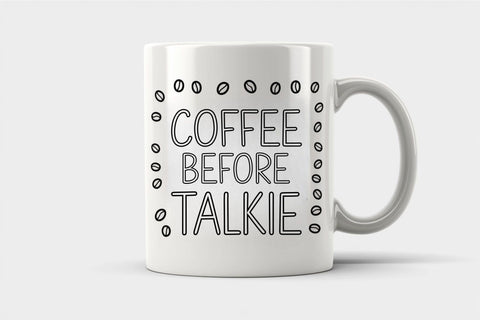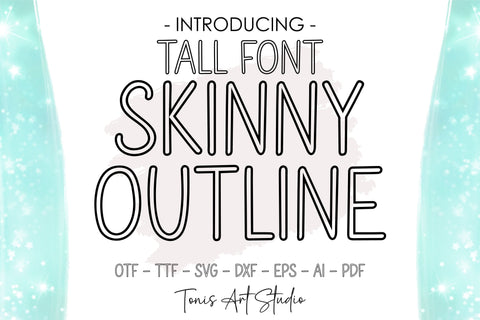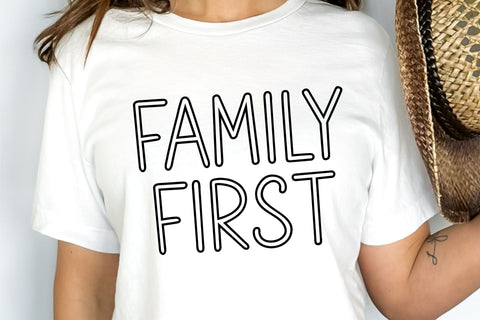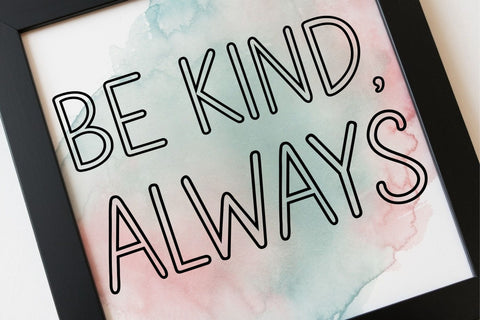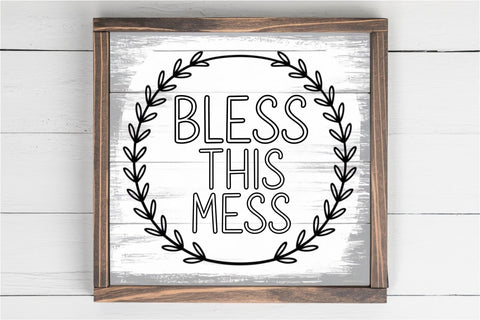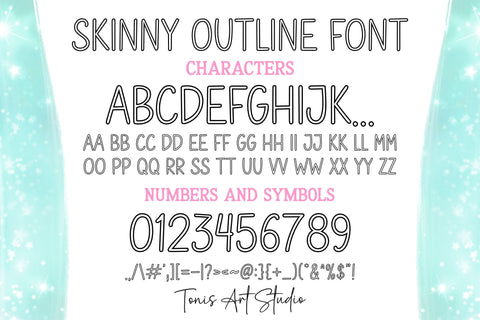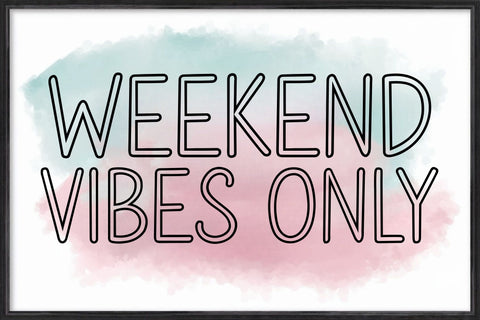
Skinny Outline Font - Modern Minimalist, Tall Font SVG OTF, Outline Letters Svg, Cricut Fonts, Silhouette Cut Files
Skinny Outline Font
A clean and modern outline font perfect for minimalist and stylish designs. Available in OTF, TTF, SVG, DXF, EPS, and PDF formats.